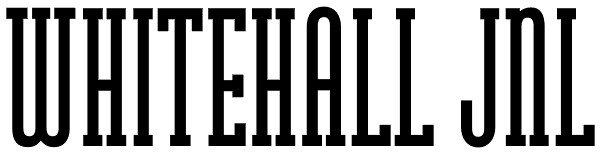
Whitehall JNL
Whitehall JNL is the serif counterpart to Jeff Levine's Wingate JNL - both are strongly influenced by the Art Deco stylings of such condensed typefaces as Huxley Vertical and other narrow titling fonts.